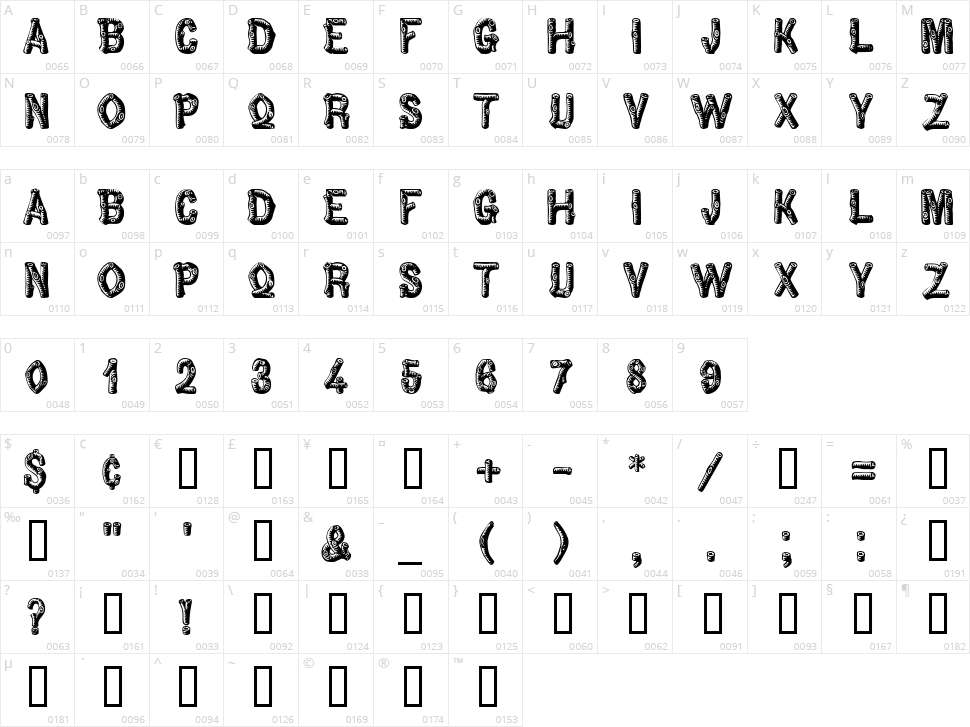
Pinewood is a typeface used mainly for display work. It's great in: ads, newsletters, headlines, or for any desktop publisher who wants that something extra to stand out in their design work. Note: this typeface will use more memory than most, so don't download a lot of different fonts when you use this one or you'll overload your printer's memory. If you're using Adobe's Type Manager, you may tax it's memory use as well. Remember, even if you use this font only once, it's well worth the price (See below).
| Designer Name: | Richard William Mueller |